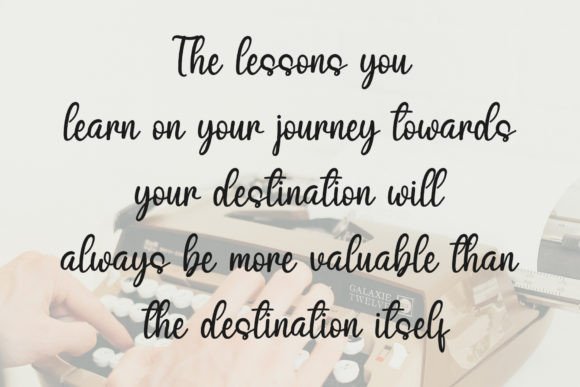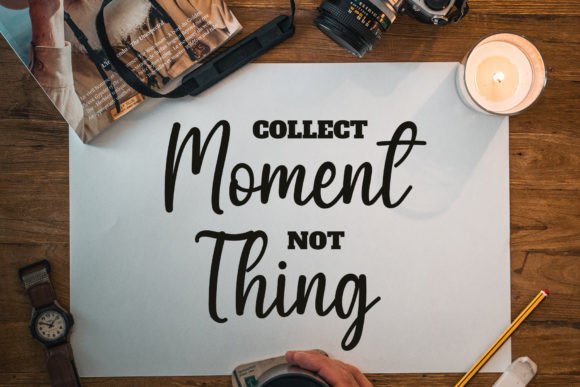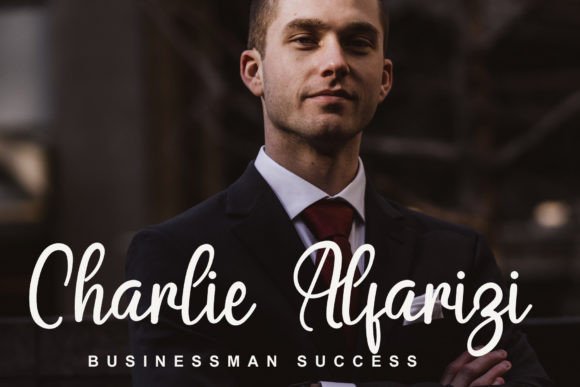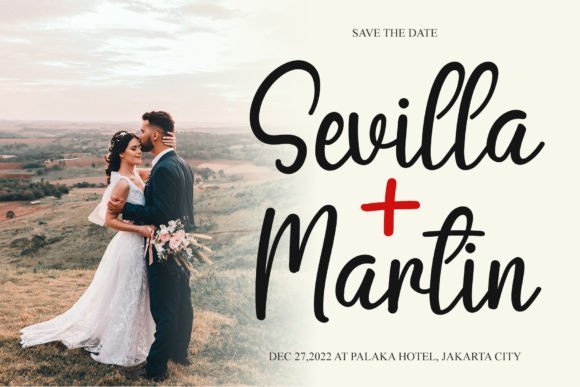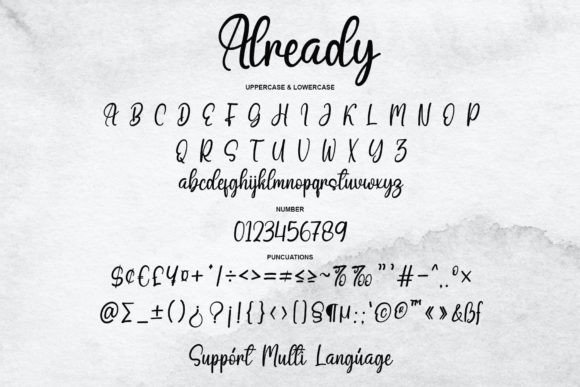
Discover the charm of the Already font, a unique handwritten script featuring beautifully rounded letters. This font was carefully crafted to produce elegant and stylish results for your creative projects.
The Already font is perfect for a variety of uses, including titles, invitations, letters, branding, and much more. Its distinctive round letterforms bring a friendly yet sophisticated vibe to any design.
You can use the Already font to add a personal touch to your invitations, greeting cards, social media posts, or product packaging. Its unique style helps your work stand out while maintaining readability and balance.
Despite its unique style, the Alreadyfont is highly readable across different sizes. Whether used for bold headlines or subtle body text, it ensures your message is clear and engaging.
Using the Alreadyfont will add a creative and stylish flair to your projects. If you want a handwritten font that is both unique and versatile, this font is an excellent choice.
In summary, the Alreadyfont is a unique, round-lettered handwritten script perfect for titles, invitations, letters, and more. Its elegant and friendly style enhances any design. Download it today and bring originality to your creative work with Already.